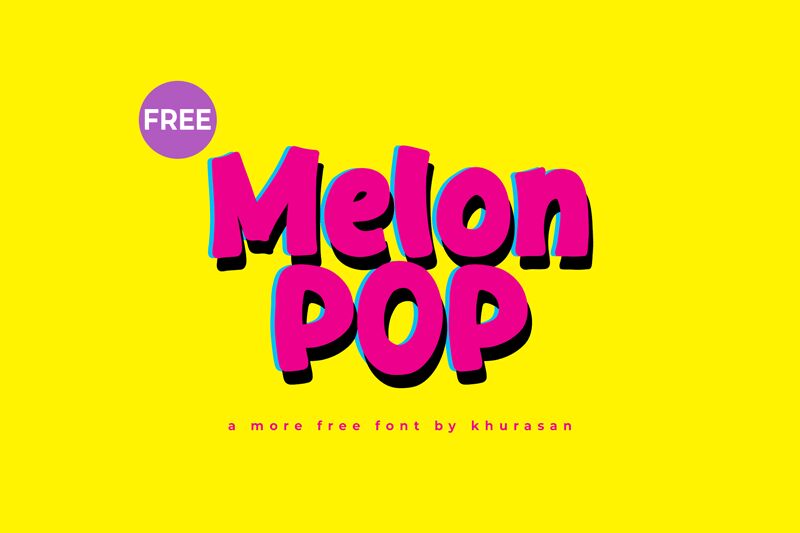
Melon Pop font by Khurasan is a free cartoon display typeface that feels like it’s been drawn with a thick, inky marker. The letters are chunky, uneven, and a little wobbly in the best way, giving your text a bouncy, hand-made energy. Soft curves and plump shapes make every word feel playful and friendly, as if it could belong on a candy wrapper or a splashy kids’ TV logo.
Using Melon Pop, titles instantly grab attention without feeling shouty or harsh, so it shines on kids’ book covers, birthday invitations, snack or toy packaging, YouTube thumbnails, classroom posters, and game titles. This free font loves bright color palettes and works beautifully when you pair it with a clean geometric sans for small body copy. Keep Melon Pop big and bold, and let the bubbly silhouettes do the talking.